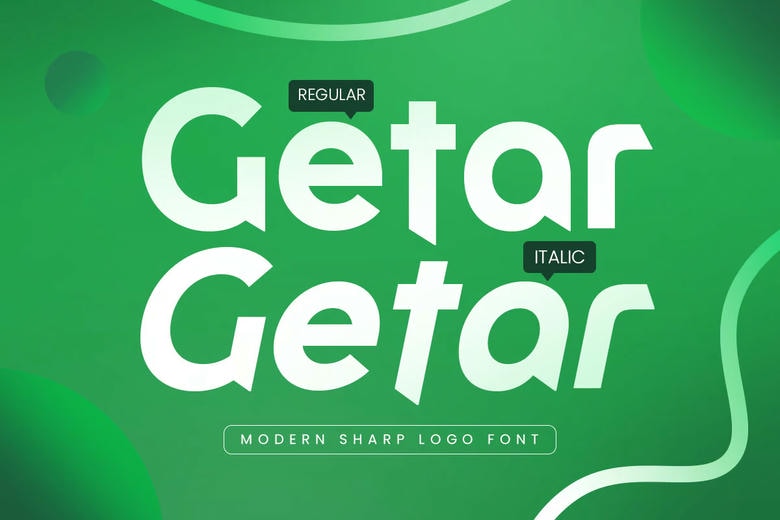
Getar Font
Getar is a modern and sharp sans serif font tailored for finance, corporate branding, fintech, and business identity. With clean edges and a precise design structure, Getar communicates professionalism, clarity, and strength in every character.
Whether you’re designing for investment firms, banking platforms, tech startups, or business presentations, Getar delivers a refined and trustworthy visual tone that supports confident messaging. Its bold yet minimal form makes it highly legible across both digital and print mediums.
Stand out in the financial and corporate world with Getar—a font that reflects structure, precision, and modernity.
Getar Sans Serif Font